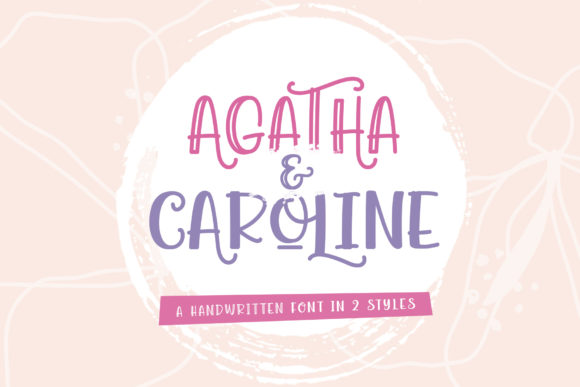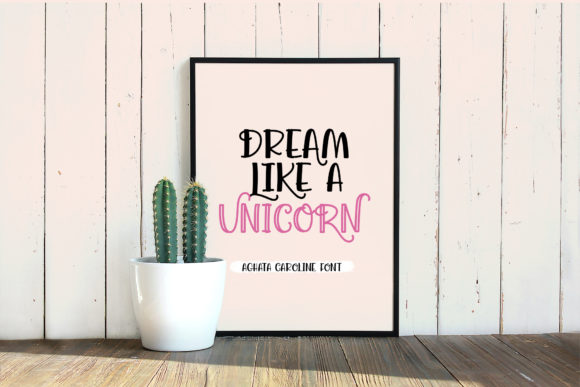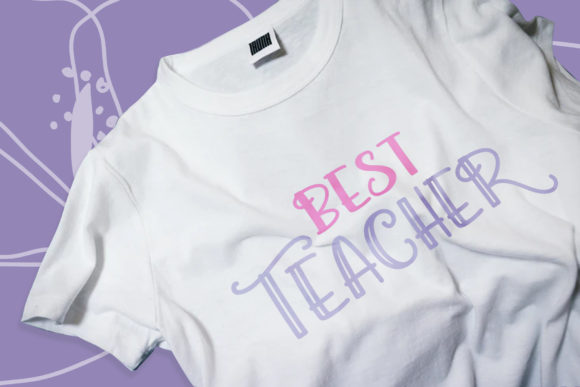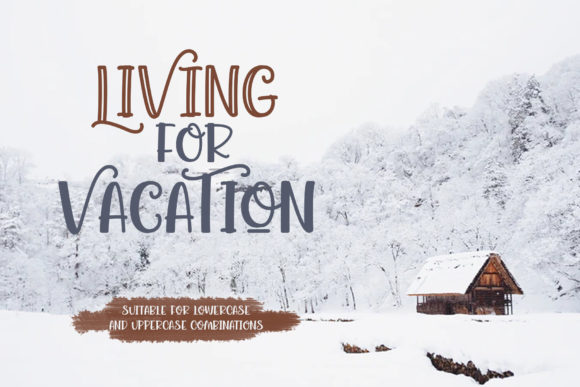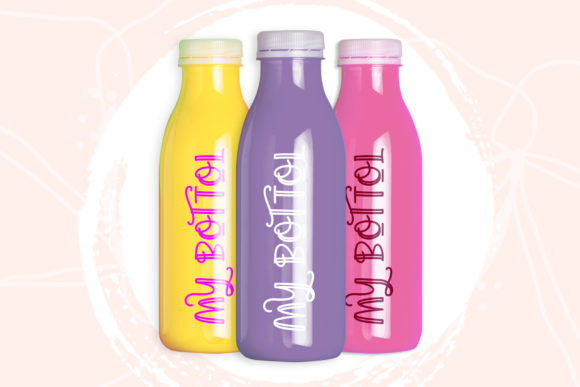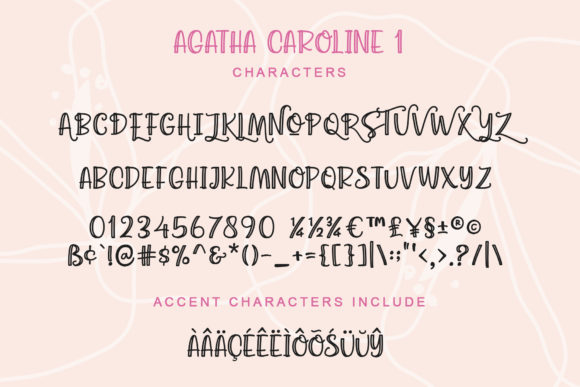
Agatha Caroline Font
About Agatha Caroline Font
Agatha Caroline is an incredibly distinct, delicate and timeless handwritten font. It looks stunning on wedding invitations, thank you cards, quotes, greeting cards, logos, business cards and every other design which needs a handwritten touch.